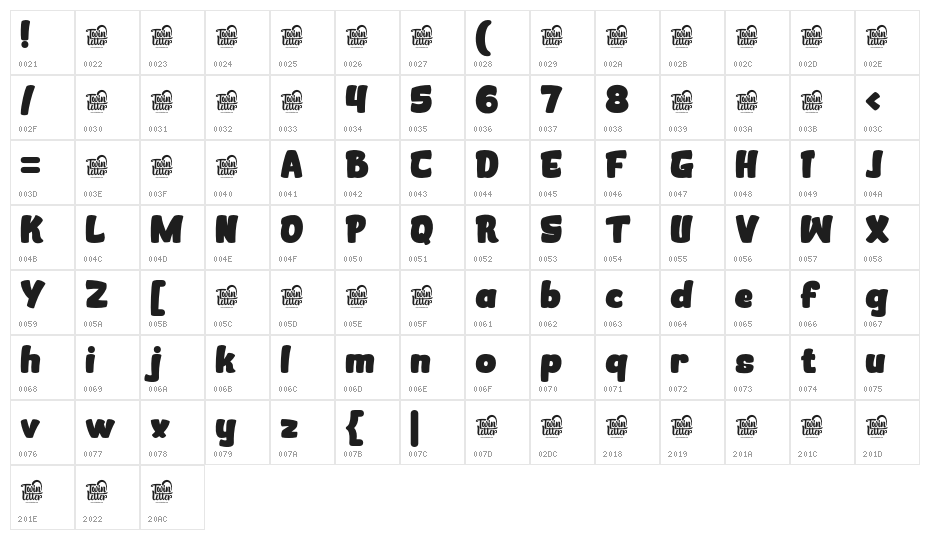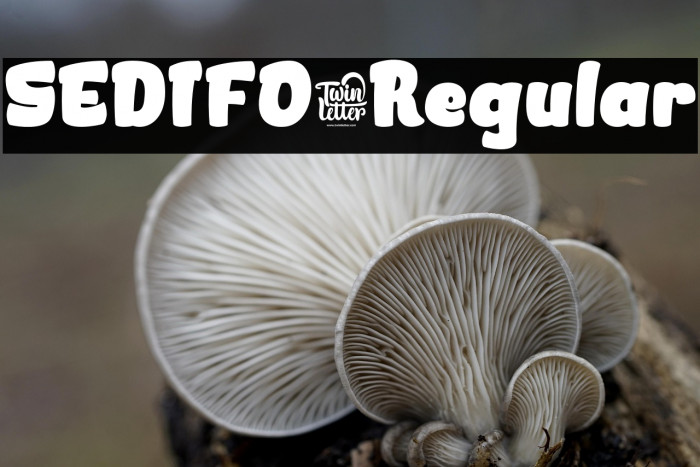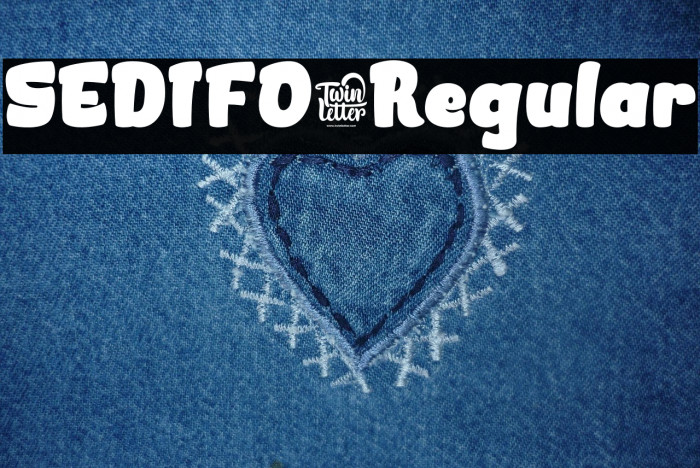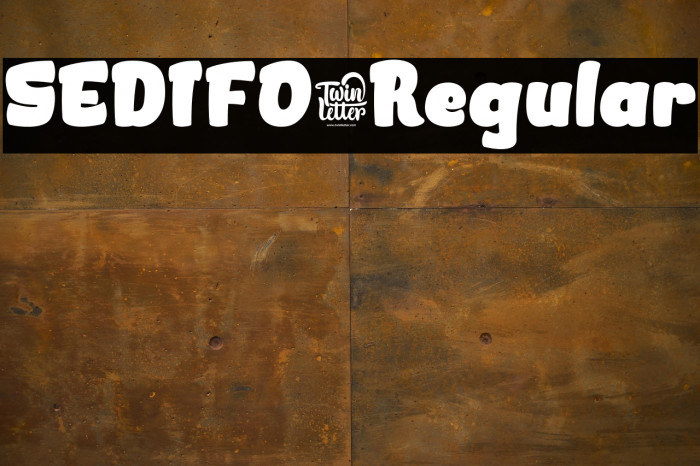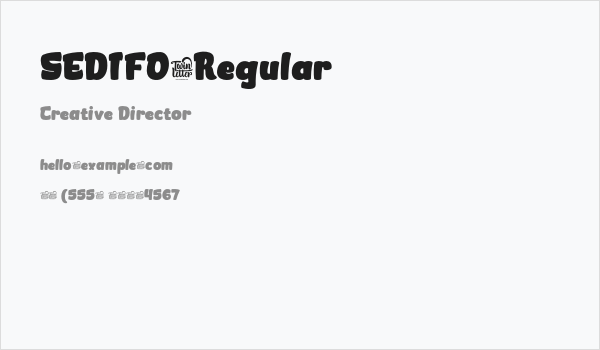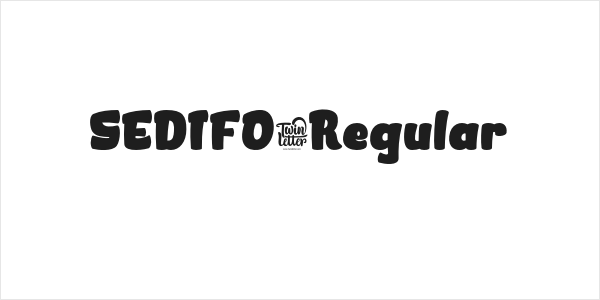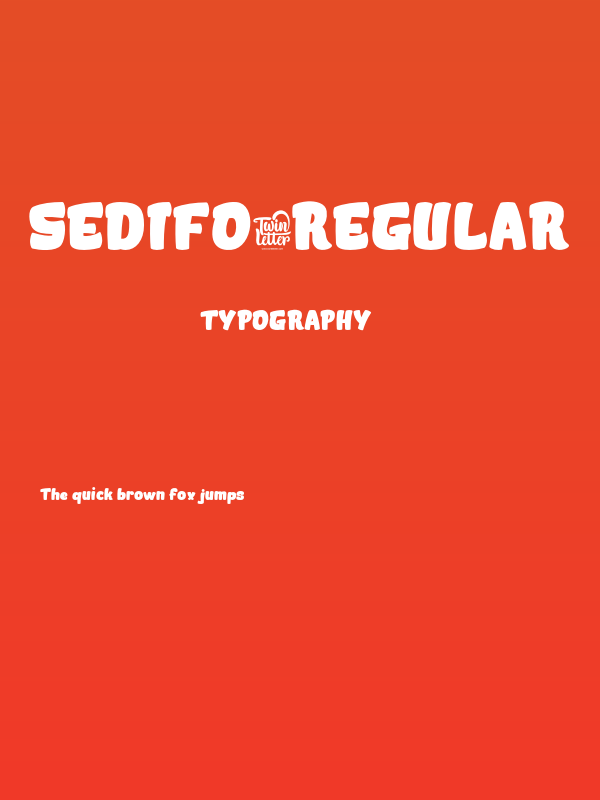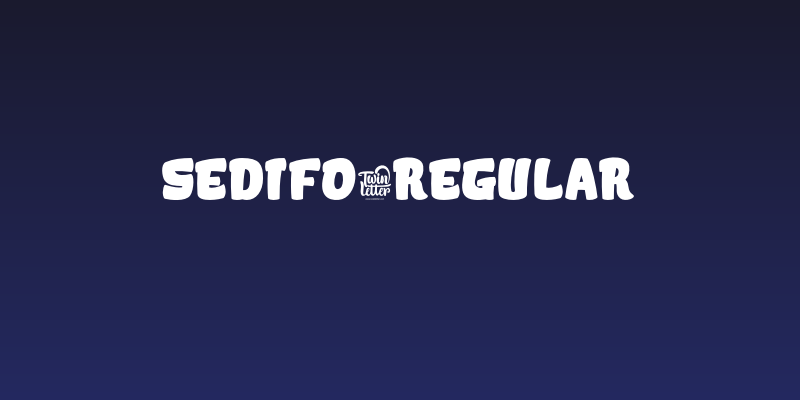
SEDIFO-Regular Font
SEDIFO-Regular Description
This font features bold, rounded characters that convey a playful and friendly aesthetic. The letters are thick and uniform, with a smooth, flowing style that adds a sense of warmth and approachability. The uppercase and lowercase letters maintain a consistent weight, enhancing readability while retaining a unique charm. The numbers and special characters follow the same design principles, ensuring a cohesive look across all text elements. This font's design is ideal for projects that require a touch of whimsy and creativity, making it suitable for a variety of applications.
| Overall Style | Playful, Friendly |
| Proposed Projects | Ideal for children's books, playful branding, posters, and creative projects. |